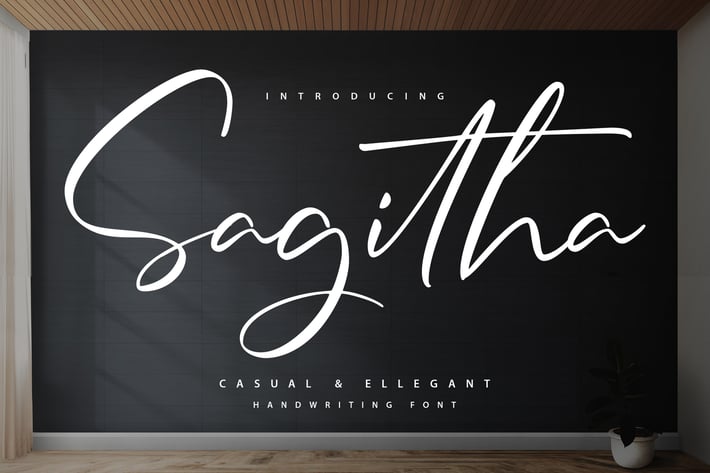
Sagitha | Casual & Elegant Handwriting Font
Sagitha | Casual & Elegant Handwriting Font with a calligraphy style, So beautiful on invitation like greeting cards, branding materials, business cards, quotes, posters, and more!